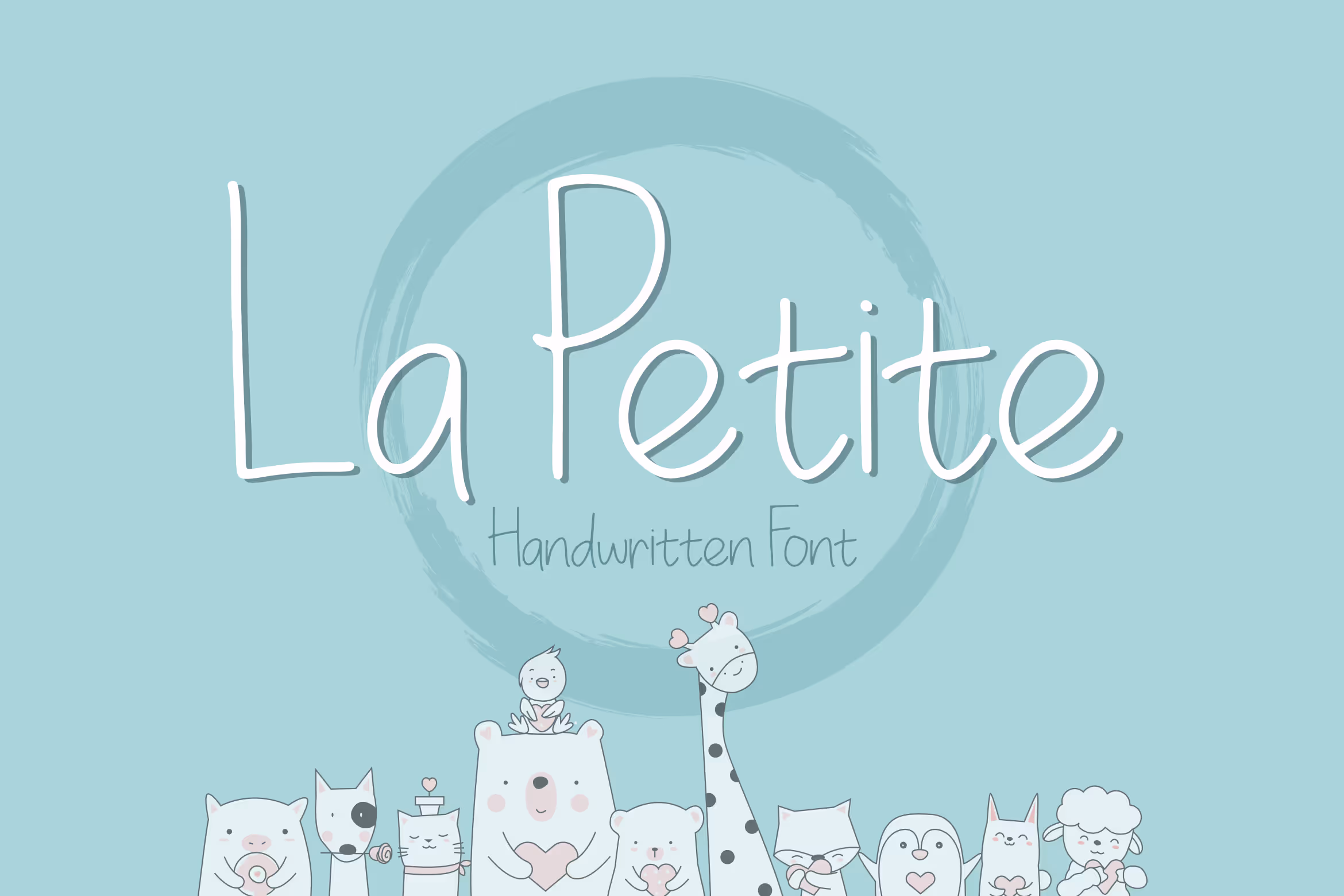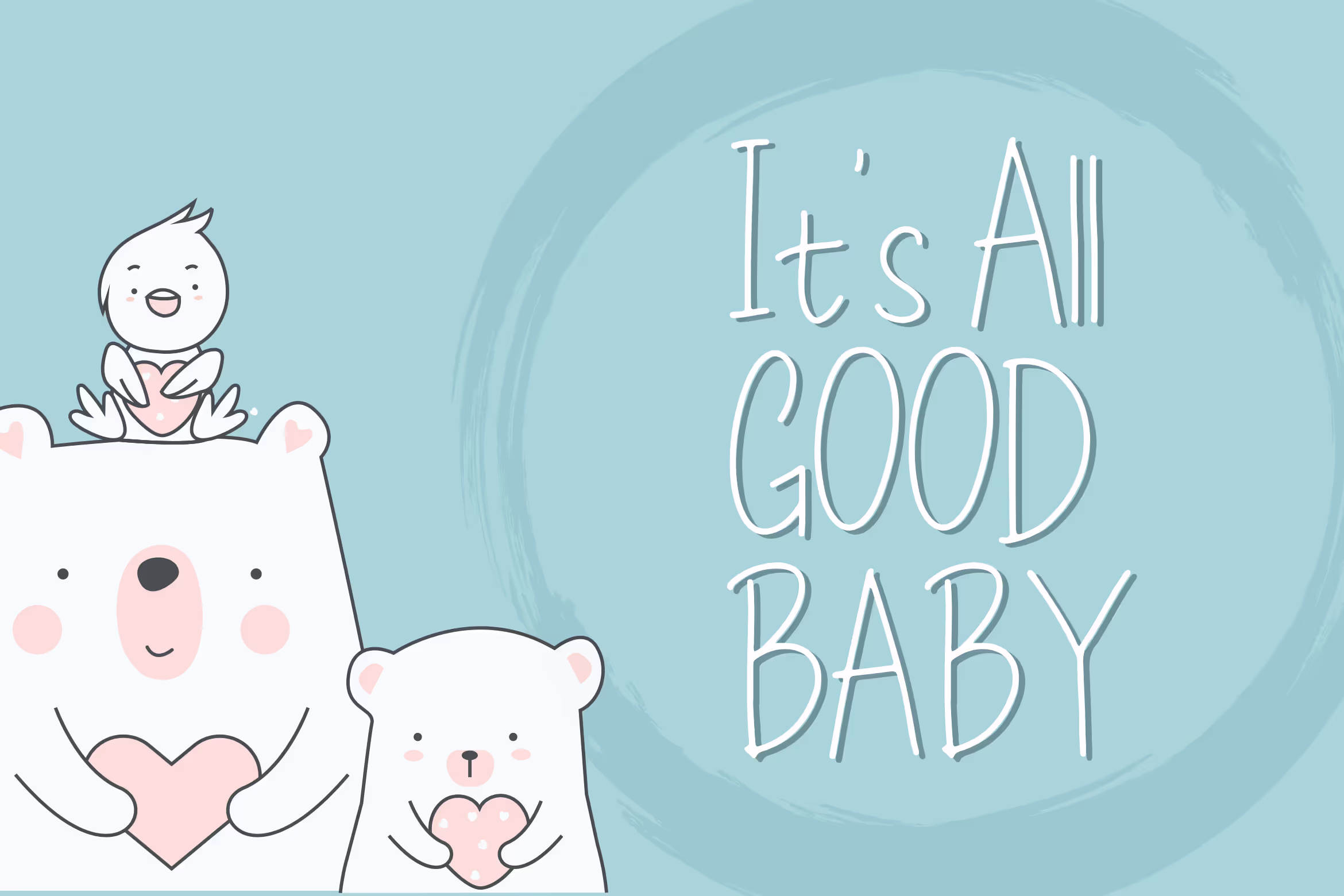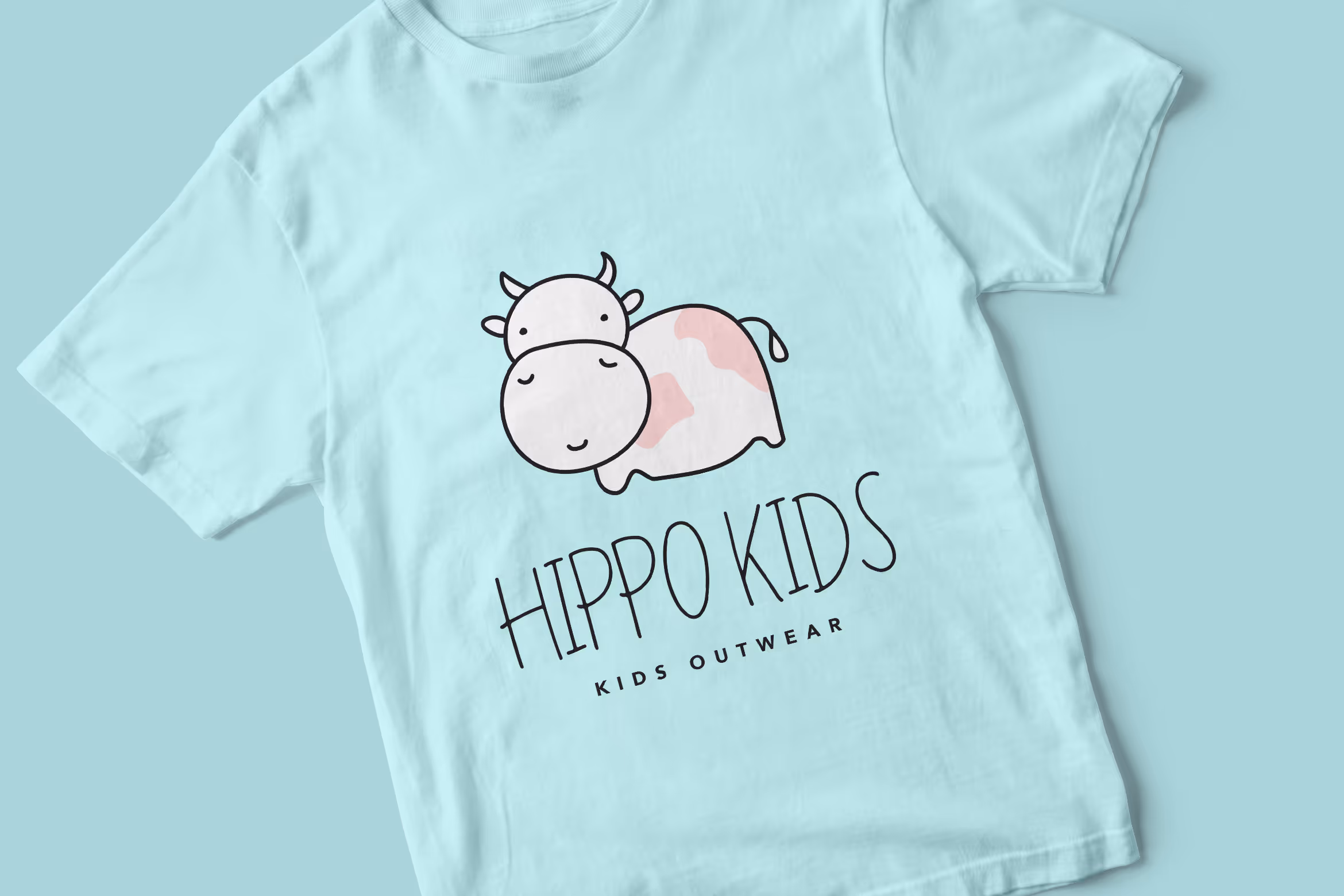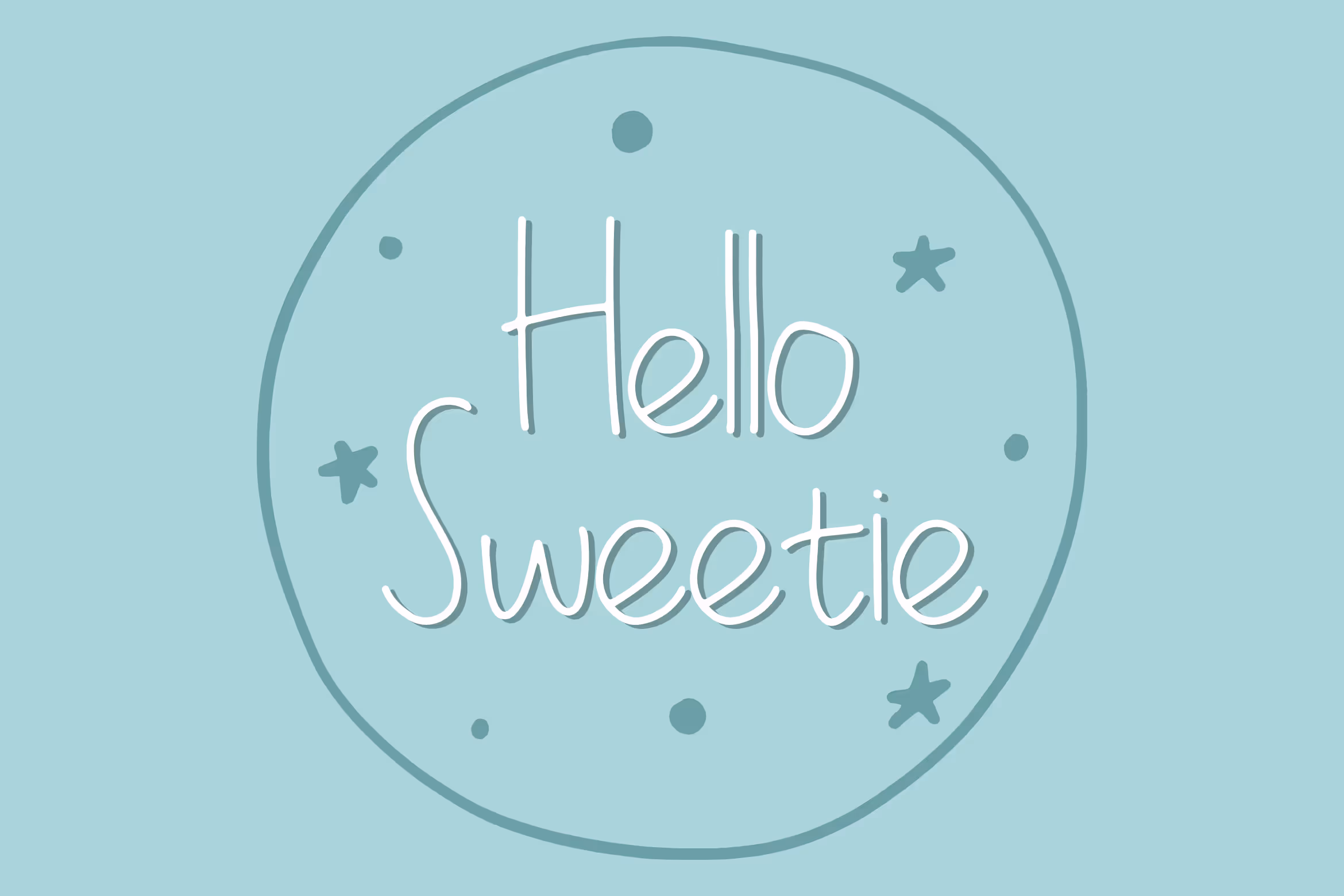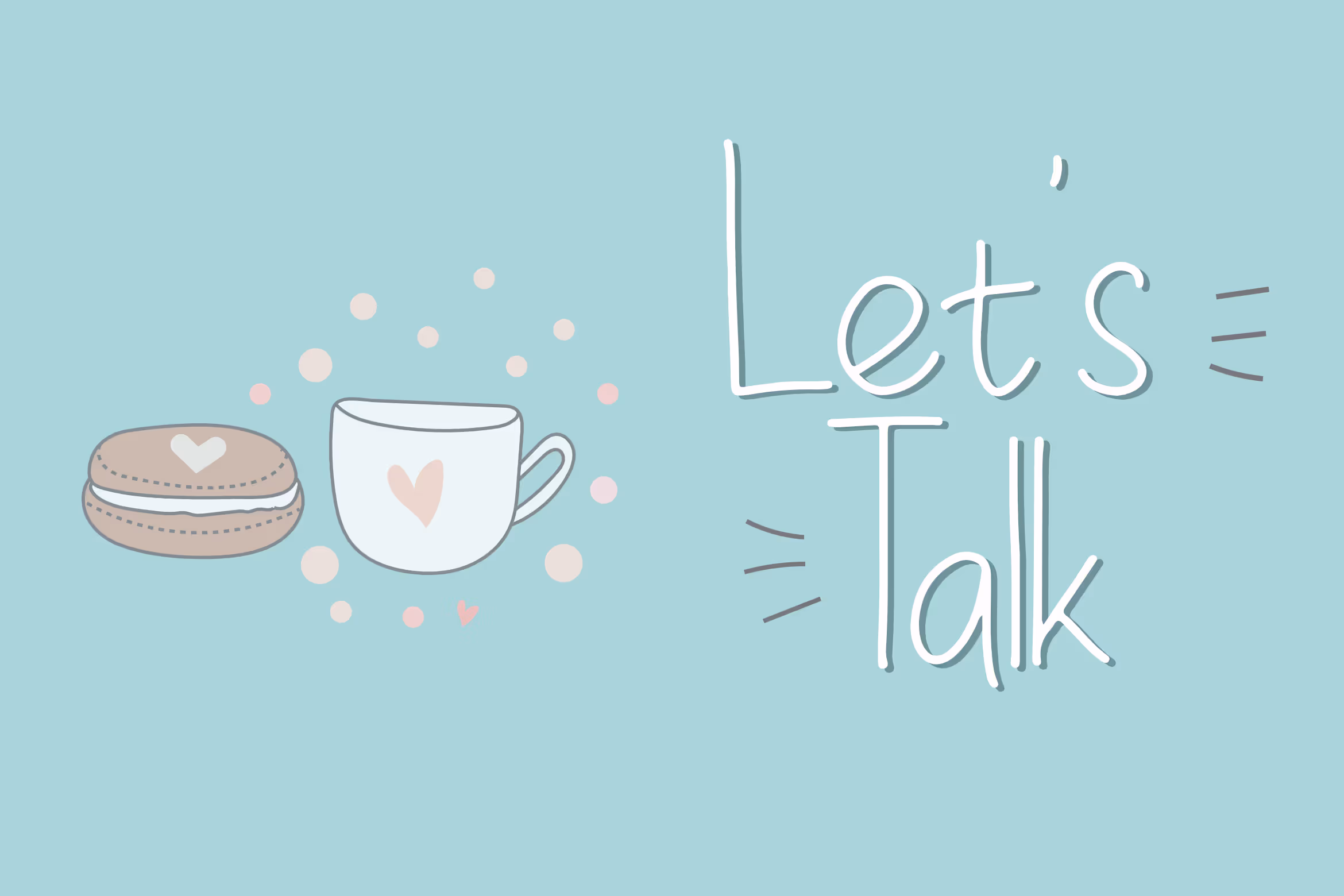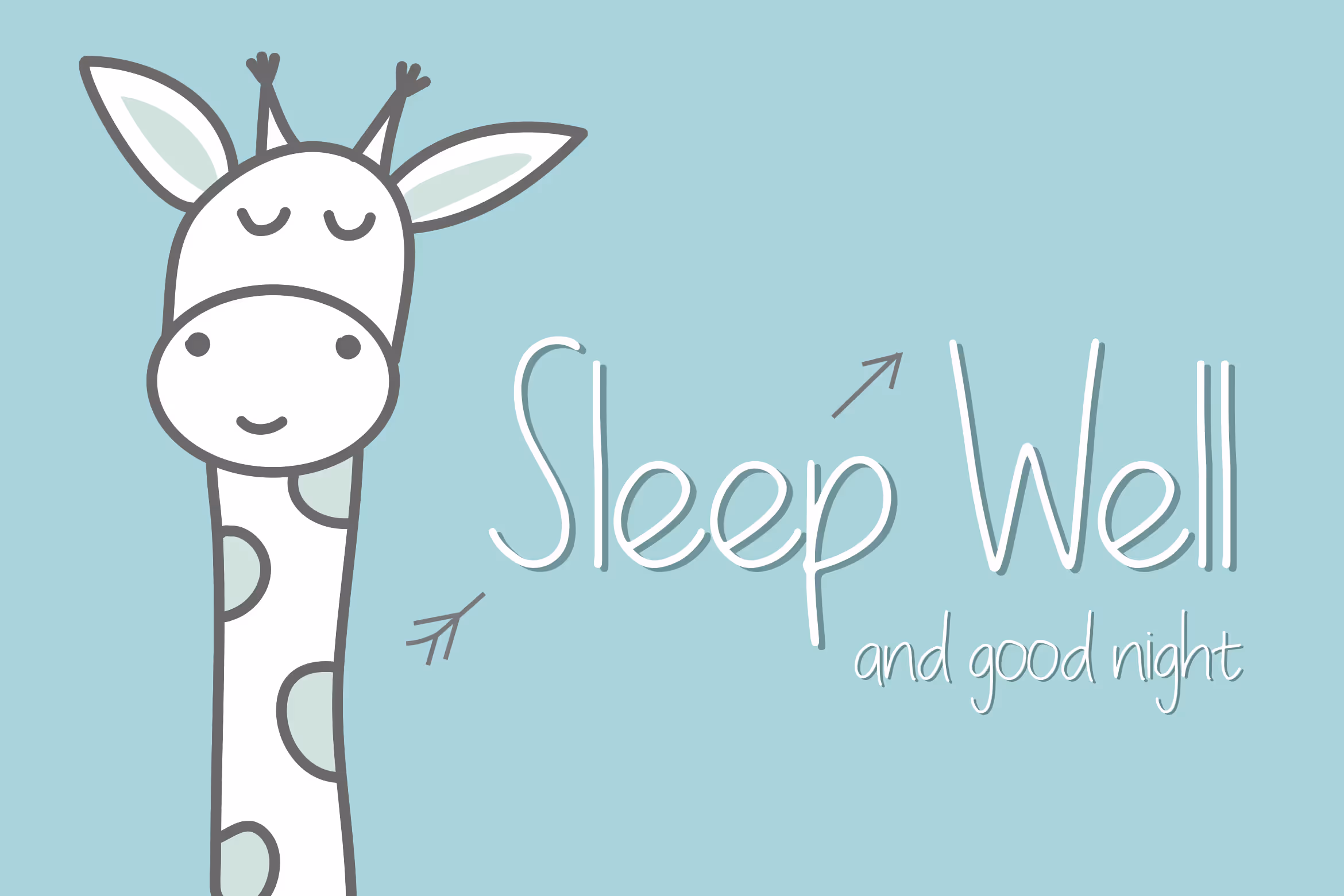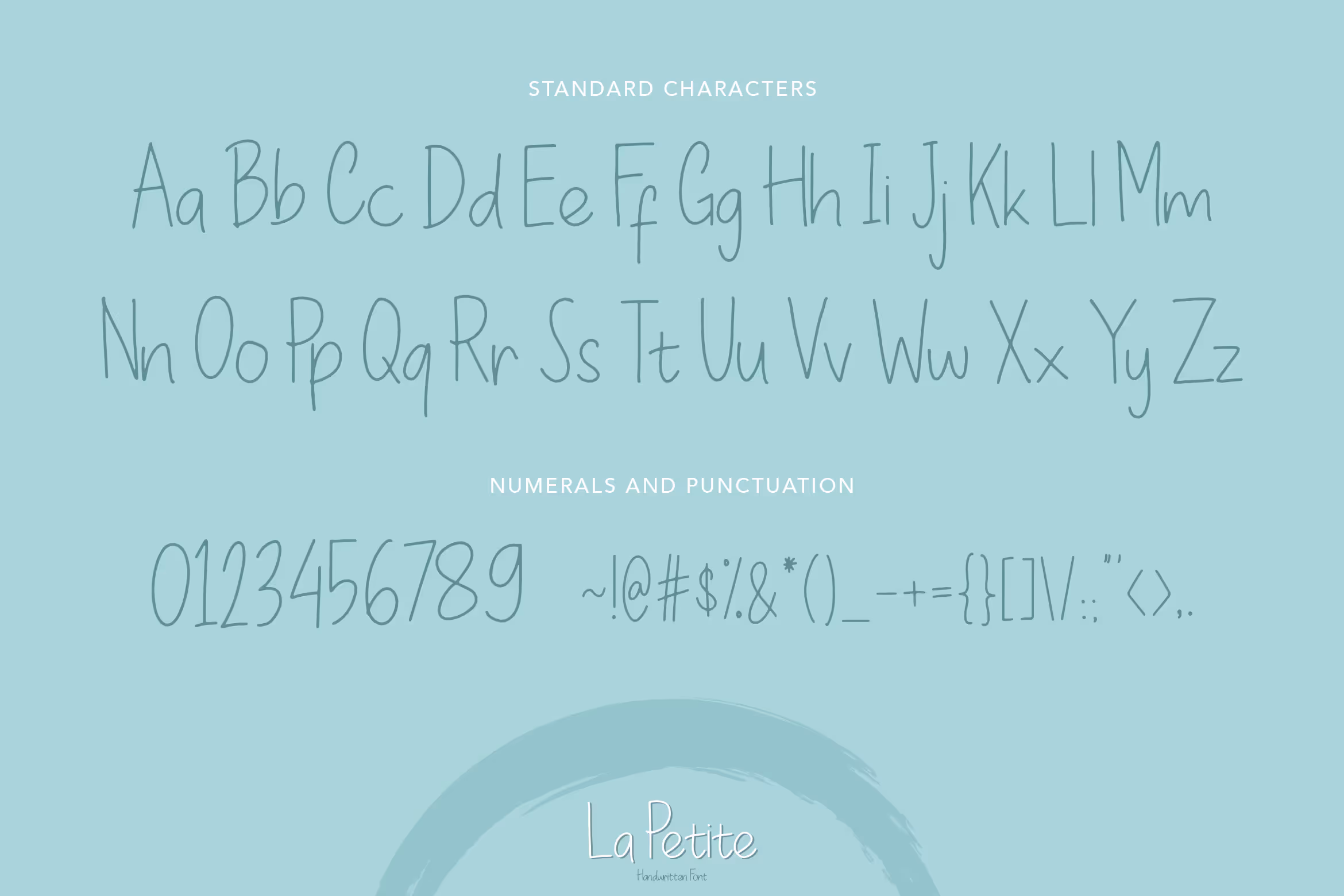
No bold or thick font it’s just a slim, slender, soft and friendly font type brought by La Petite. This is a perfect choice for the children or kids and informal theme, product packaging, book or magazine cover, clothing and many more. It is also suitable for a stylish text overlay to any background image. For fun and semi-formal needs, it’s also the best choice.
Every package of La Petite, the elegant handwritten font, contains fun, elegant and clean characters in uppercase and lowercase letters, a complete set of numbering and punctuation so this font can be used in any regular or professional term. La Petite only available in OTF format files only.